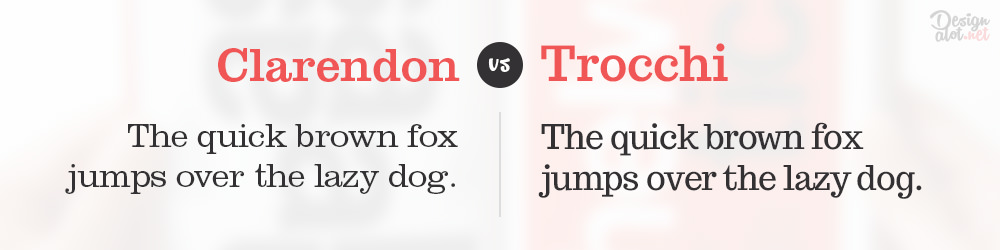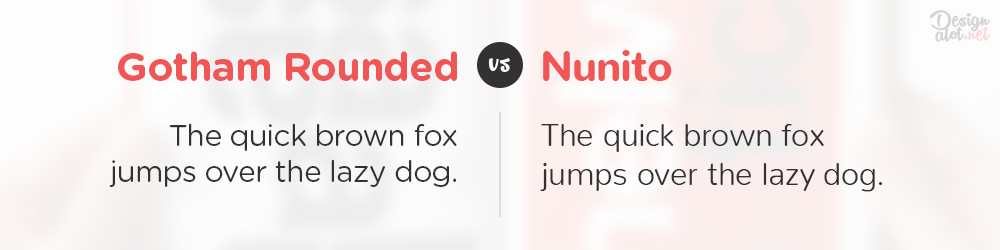
We all love the looks of some of the most popular fonts, but we may not always afford it. That’s when we move towards cheaper or free font alternatives! Even though there are many free fonts online that might be similar to popular fonts like Helvetica or Gotham, only a few of them get close to their quality. In this article I have made a collection with the best replacements I have found for fonts like: Trajan Pro, Bodoni MT, Gotham, Adelle and more. All of these are similar in style and aspect with their premium version, only that they’re all available to use for free in personal and commercial projects. Take a look at each and one of them, as they’re all worth trying!
All of the fonts you’ll find alternatives for in this article are: Helvetica, Gotham, Trajan Pro, Bodoni MT, Museo Slab, Adelle, Clarendon, Dax Pro, Neutraface and Gotham Rounded.
01. Helvetica vs Arimo
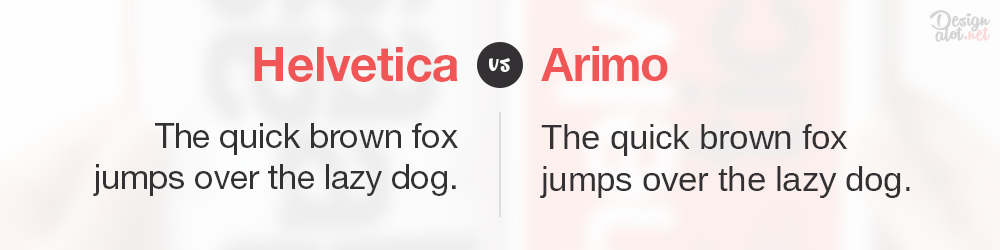
The first font family I’m gonna start with it’s also probably the most popular typeface at this moment, and that’s Helvetica. Helvetica is a sans serif font family, created and released in 1957 by Max Miedinger, based on a font from the end of the 19th century called Akzidenz-Grotesk. Due to its great and clear style, the font rapidly gained popularity, making it today one of the most used sans serif fonts, its usage expanding from branding to signage and advertising.
Thanks to its great composition and design, the font is liked and desired by many designers these days. But, due to its $35 per style, the font isn’t that accessible to everyone, especially to a designer that’s just starting his design journey. Therefore, one must settle for alternatives, mostly free ones. After I’ve done some research and browsed through sites full of free fonts – like Font Squirrel and Google Fonts – the best match that I’ve found that could be at least near to Helvetica, it’s called Arimo. Designed by Steve Matteson from Ascender Fonts type foundry, even though it wasn’t thought as a Helvetica alternative, Arimo fits the role. Thanks to its clean and clear design, it works perfectly with custom logo designs and branding, typography, advertising and mostly every type of projects. Arimo it’s also available in four styles: Regular, Italic, Bold and Bold Italic.
02. Gotham vs Montserrat
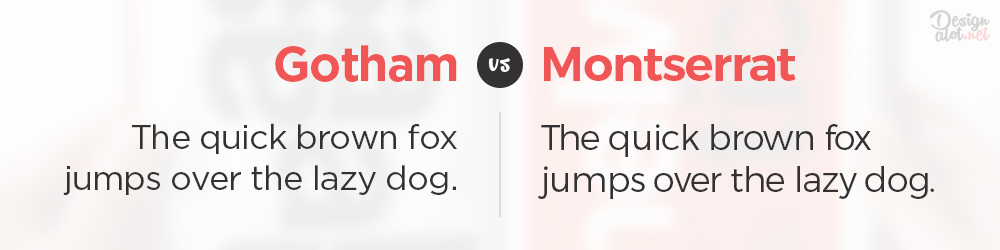
Coming next is “Gotham“, another sans serif font family that is gaining lots of popularity. If you’re not familiar with it, you may have seen it in the last 8 years as part of President Obama’s campaigns. Gotham became the official typeface of President of United States during Obama’s presidency. It was a great choice, as this is a strong and bold typeface, perfect for making a statement. The font was designed by Tobias Frere-Jones and it was released in 2000.
Even though its a great font, I have managed to find an alternative to Gotham that will fit the role perfectly! The typeface in matter it’s called Montserrat, a sans serif font family created by Julieta Ulanovsky. A great thing about this font, that I just found out during my research, it’s that the font was actually made available for free thanks to a Kickstarter campaign. It seems like its designer, Julieta, created a campaign to get funds to help her finish the font and make it available on Google Fonts. That’s a great idea and it was well done!
Beside the great design of Montserrat, the typeface also comes in 9 weights, plus an alternative style. Weights available are: Thin, Extra Light, Light, Regular, Medium, Semi Bold, Bold, Extra Bold and Black.
03. Trajan Pro vs Cinzel
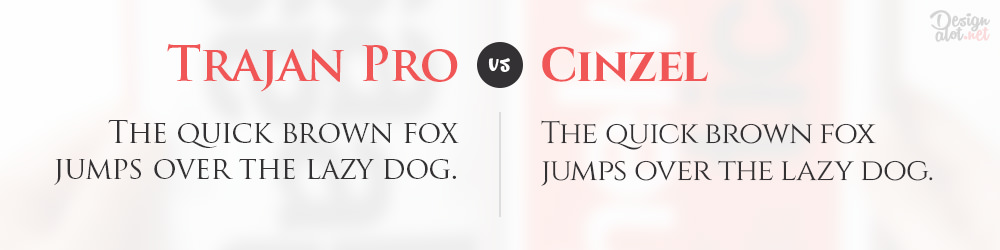
Third font pair catches two quite popular fonts, both the premium and the free one. This time we have Trajan Pro, which is a premium font designed by Carol Twombly for Adobe in 1989, and Cinzel, a completely free and open source font created by Natanael Gama in 2013. They’re both quite similar and quite different at the same time, each having its unique touch. Both fonts have an old roman/latin style, Trajan being inspired from inscriptions found at the base of Trajan’s Column, and Cinzel most probably being inspired by Trajan.
The slight differences in style between Trajan and Cinzel are that the first one has a more rough and raw style, while Cinzel is more clean and stylish. In this case I might say that the free replacement may be better than its premium lookalike.
Cinzel comes a free font for both personal and commercial use and it’s available in 3 weights: Regular, Bold and Black. Beside that, Cinzel comes in two styles, the second being called Cinzel Decorative with a unique and decorative approach to each letter. This one’s also available in three styles: Regular, Bold and Black. Overall, this is a well designed replacement and it’s a must in every designer’s font library.
04. Bodoni MT vs Playfair Display
Bodoni MT or Monotype Bodoni is a typeface based on an old serif font known by the same name – Bodoni – created in the late 18th century Giambattista Bodoni. It falls in the Didot style, being one of the first and oldest fonts from this category. This typeface comes in 24 weights and styles, at a cost of $35 per font. You have probably noticed so far that these are the main prices of these fonts, but good thing we have replacements for when we can’t afford to buy the premium versions. In this case, our great replacement comes by the name of Playfair Display, a typeface available in 3 weights, 6 styles and an extra small caps typeface called Playfair Display SC.
I couldn’t find an exact release date for Playfair Display, but it might’ve been somewhere around 2015. It was created by the Danish designer and typographer Claus Eggers Sørensen and released as a free font for all of us to use. The font is available on a numerous number of sites, but the most popular ones are Google Fonts and Font Squirrel. Below you’ll find the link towards the Google Fonts download page.
Hey kryzsctof,
Could you tell us which of these you think aren’t similar?
From our point of view, all of these have similarities and can replace one another. But that’s just our point of view and we would love to hear your thoughts on these.